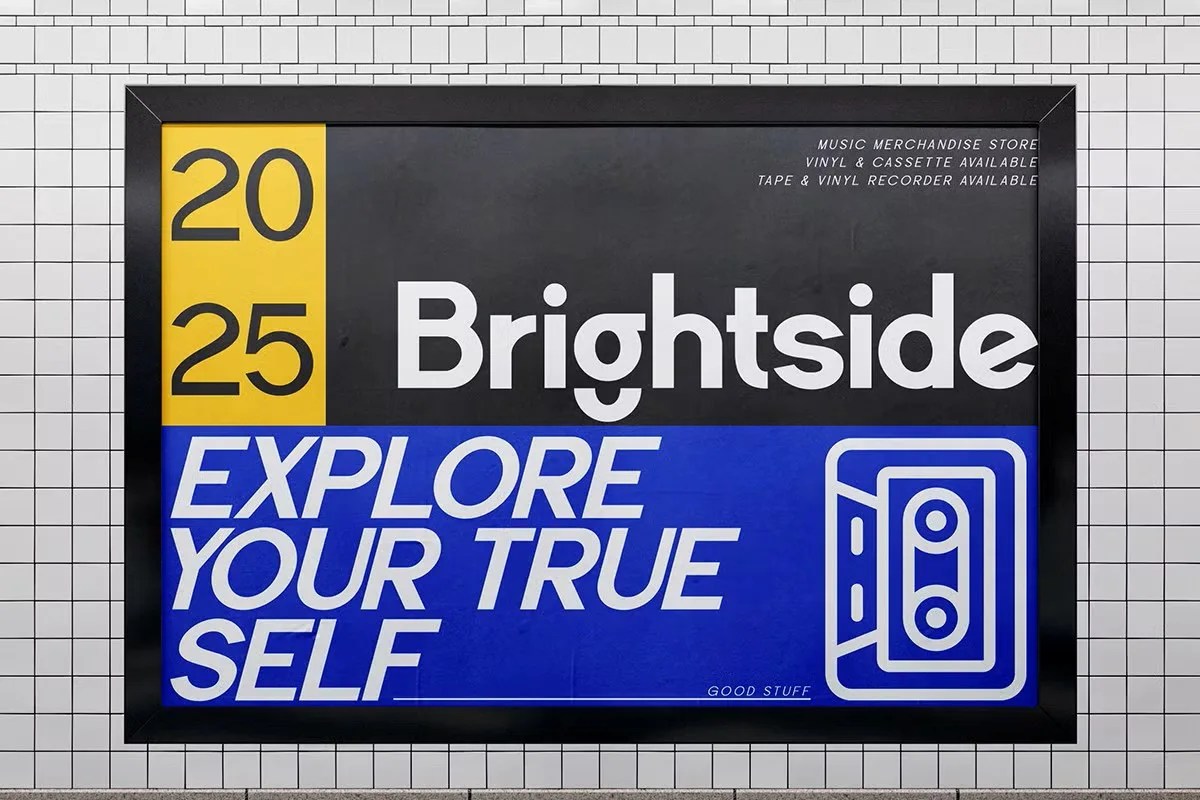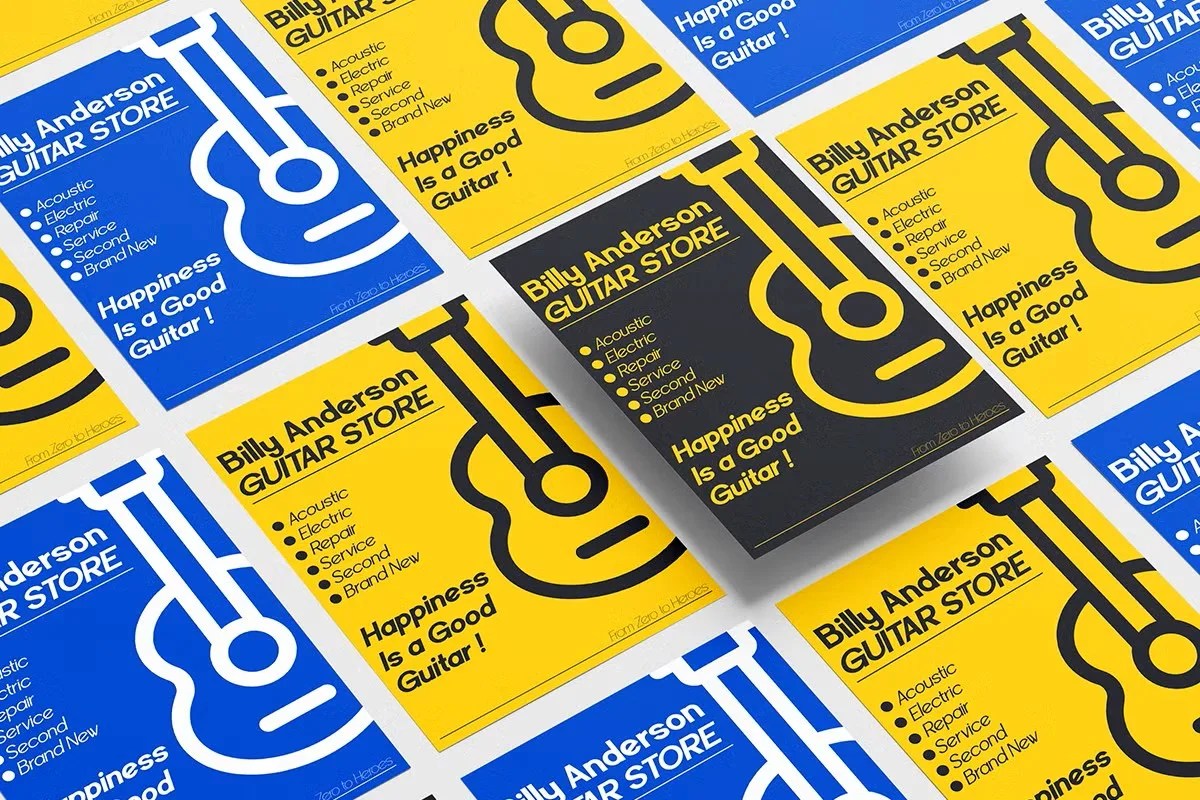
Raxogen by Font Liner is a modern sans serif font that combines sleek geometry with clean readability. Its structured forms and contemporary appeal make it highly versatile for branding, editorial layouts, posters, websites, and digital media. With a professional and stylish finish, this typeface is designed to elevate both print and screen projects. Delivered in .OTF format, it ensures smooth compatibility with all major design software.
• Bold and modern sans serif design
• Perfect for logos & branding
• Great for editorial & magazines
• Stylish choice for web design & UI
• Excellent for advertising & posters
• Works well in corporate identity
• Clean readability in various sizes
• Minimalist, versatile letterforms
Raxogen